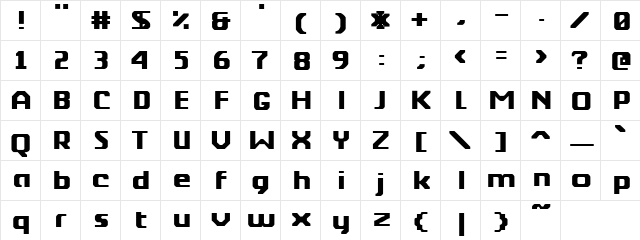
Berkelium Type Regular Font Preview
Berkelium Type Regular
Berkelium Type Regular Font Details
Design Context for Berkelium Type Typeface
Berkelium Type is a composed and adaptable typeface that performs quietly and consistently across a wide range of design contexts.